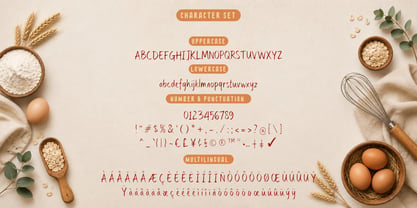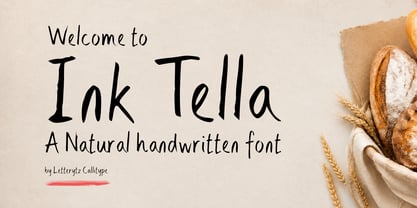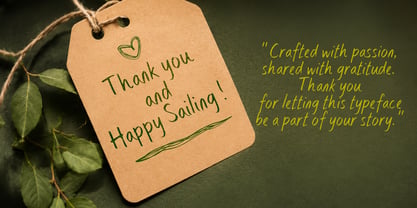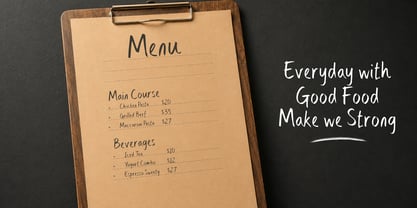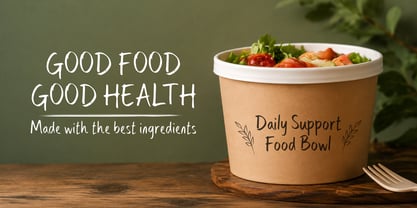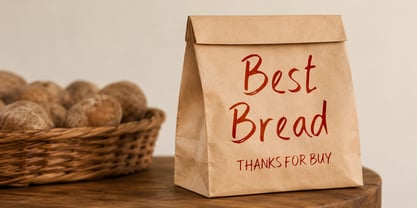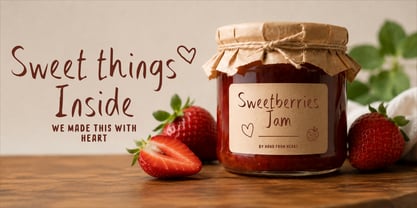
Ink Tella
por Letterytz CalliType
A família de fontes Ink Tella foi desenhada por Wahyu Eka Prasetya, Dian Angga Marytama e publicada pela Letterytz CalliType. Ink Tella contém 2 estilos e opções de pacote familiar. Saiba mais sobre esta família
Ink Tella is a natural handwritten font that captures the authentic feel of real ink strokes. Designed with a clean, casual, and expressive character, it brings warmth and personality to logos, branding, packaging, social media, invitations, posters, quotes, apparel, book covers, and creative editorial designs. Its organic texture and smooth letterforms make Ink Tella an excellent choice for projects that need a genuine handwritten appearance while maintaining excellent readability.
Whether you're creating modern branding or rustic handcrafted designs, Ink Tella delivers a timeless handwritten style that feels both elegant and approachable.
• Uppercase & Lowercase
• Numbers & Punctuation
• Multilingual Support
• Standard Ligatures
• Regular & Slant Style
Designers: Wahyu Eka Prasetya, Dian Angga Marytama
Fundição: Letterytz CalliType